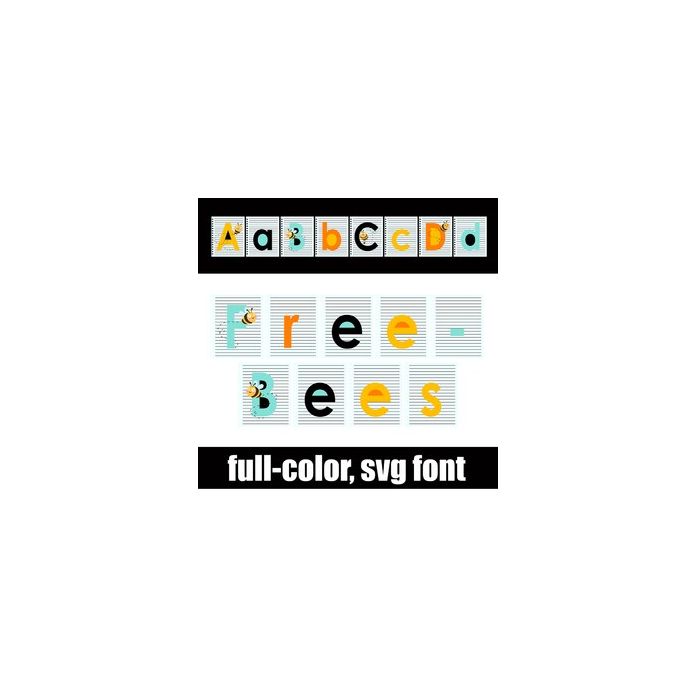
This full-color font features sans serif lettering on notebook paper with buzzing bees throughout. There is an alt case w/ additional colors you can access through your system or Silhouette's glyph map.